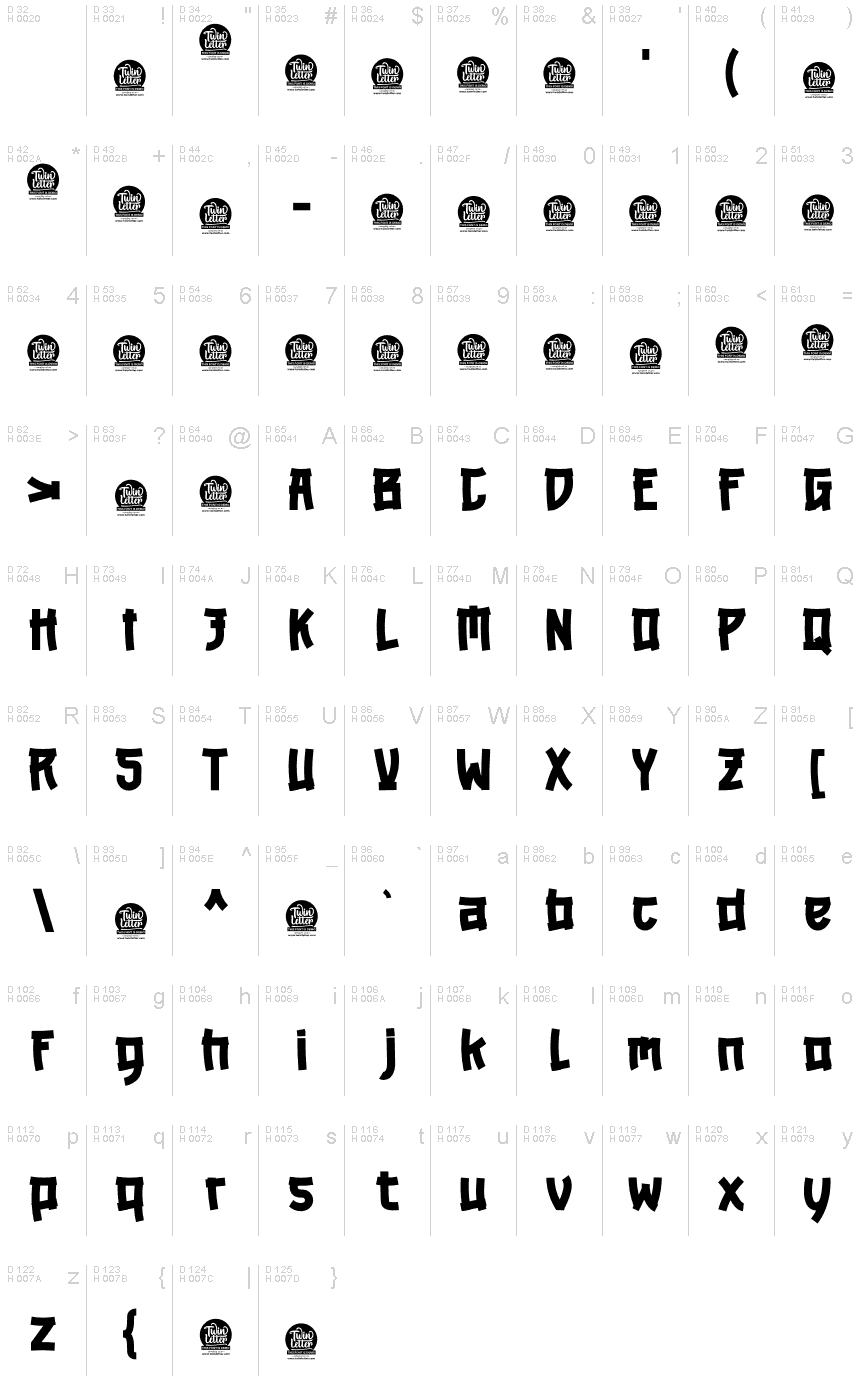
MAREKA Personal Use
MAREKA, a bold and narrow foreign font designed by ROZI, features a unique Japanese-style character. It is perfect for projects that require an exotic yet elegant touch, such as fashion magazines or restaurant menus.